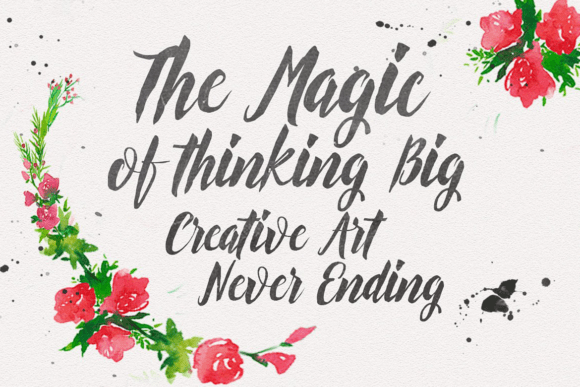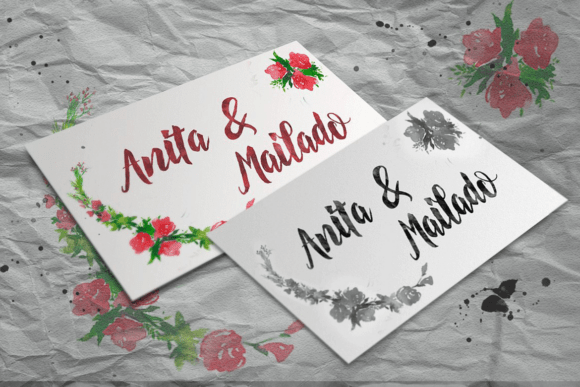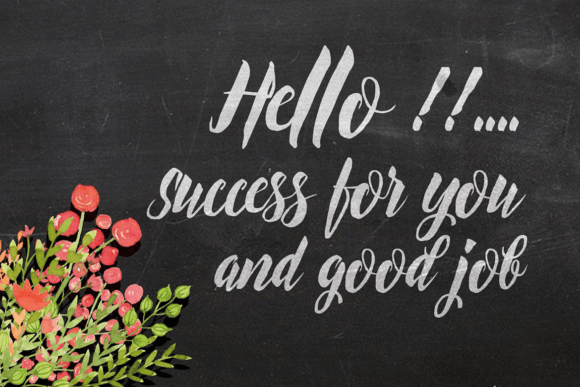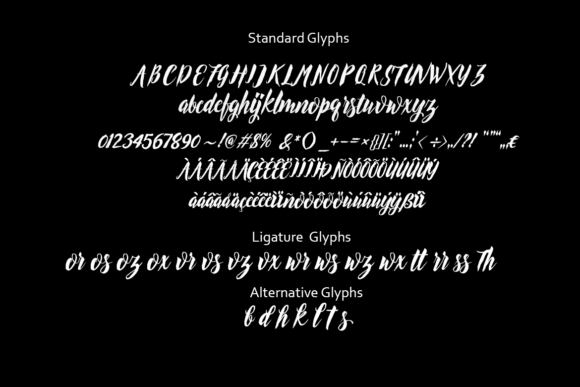
Introducing Exoticus Font: Elevate Your Designs with Elegance and Sophistication
In the world of typography, a well-crafted font can make all the difference in transforming a design from ordinary to extraordinary. For designers and crafters seeking to add a touch of luxury and modern charm to their projects, Exoticus Font is an exceptional choice. This stylish script font is designed to exude elegance, sophistication, and a contemporary flair that sets it apart from more traditional typefaces.
The Essence of Exoticus Font
Exoticus Font is a masterpiece of modern calligraphy, blending the organic beauty of hand-drawn lettering with the precision and consistency of digital typography. Its design is characterized by:
- Graceful Strokes: Each letterform features fluid, dynamic strokes that convey a sense of movement and elegance.
- Fluid Curves: The font’s curves are meticulously crafted to provide a smooth, harmonious flow, making it a joy to read and behold.
- Carefully Crafted Letterforms: Every letter is designed with attention to detail, ensuring that the font is not only beautiful but also highly legible.
Versatility and Application
One of the standout features of Exoticus Font is its versatility. Its sophisticated design makes it suitable for a wide range of applications, including:
- Logos: Create a lasting impression with a logo that exudes elegance and professionalism.
- Invitations: Whether it’s a wedding, a formal event, or a special celebration, Exoticus Font adds a refined touch to any invitation.
- Packaging: Elevate your brand’s packaging with a font that communicates luxury and quality.
- Social Media Graphics: Stand out on social media platforms with eye-catching graphics that showcase your brand’s personality and style.
Why Choose Exoticus Font?
For designers and crafters looking for a font that delivers both aesthetic appeal and functional versatility, Exoticus Font offers several compelling advantages:
- Refined and Sophisticated: It adds a level of sophistication to any design, making it perfect for brands and projects aiming for a high-end look.
- Natural Flow: The font’s design ensures a natural reading flow, making it comfortable for both headings and body text.
- Polished Details: Every detail, from the letterforms to the spacing, is carefully considered to provide a polished and professional finish.
Tips for Using Exoticus Font
To maximize the impact of Exoticus Font in your designs, consider the following tips:
- Pair with Complementary Fonts: Combine Exoticus Font with simpler, sans-serif fonts for contrast and visual interest.
- Experiment with Colors: While the font itself is elegant, experimenting with different colors can further enhance its beauty and adaptability.
- Pay Attention to Spacing: Although Exoticus Font is designed to flow well, adjusting the spacing between letters and lines can help optimize its appearance for different applications.
Exoticus Font is more than just a typeface; it’s a design statement. With its stylish script, elegant strokes, and contemporary charm, it offers designers and crafters a powerful tool to elevate their projects. Whether you’re creating a brand identity, designing an invitation, or crafting engaging social media content, Exoticus Font provides the perfect blend of sophistication, versatility, and visual appeal. Discover the transformative power of Exoticus Font and take your designs to new heights of elegance and refinement.